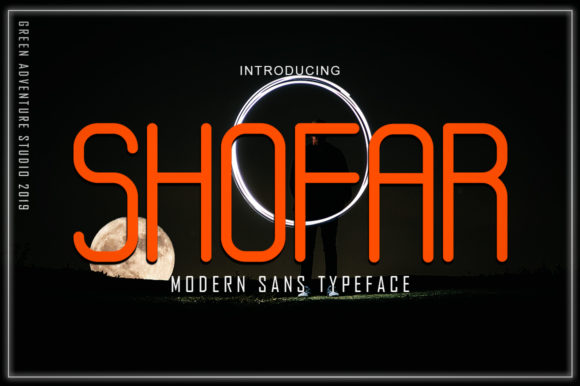
Presenting the Shofar font, an exquisite creation by Green Adventure Studio – the symbol of grace and elegance. Step into a world of captivating typography where each letter is a work of art, inviting you to craft masterpieces that dance off the page.
With its harmonious blend of sharp lines and tantalizing curves, Shofar gracefully balances structure and fluidity, infusing your designs with an air of both professionalism and playfulness. The Copyright Symbol Font keyword is more than just a label – it's an invitation to claim your creative ownership and share your vision with the world.
Let Shofar elevate your digital presence. Compose website headers that demand attention, design social media posts that pop, and create logos that leave an unforgettable impression. Its sans serif nature ensures readability and impact, while its dynamic curved corners add a touch of sophistication that will make your words shine.